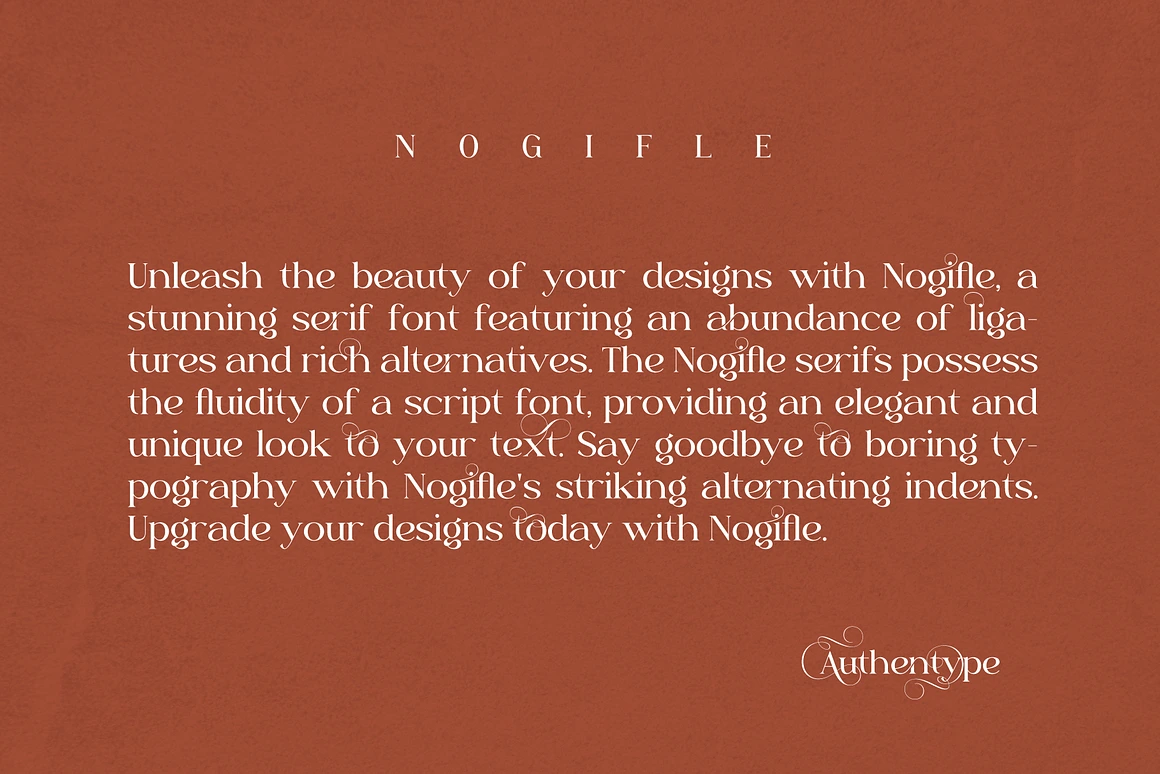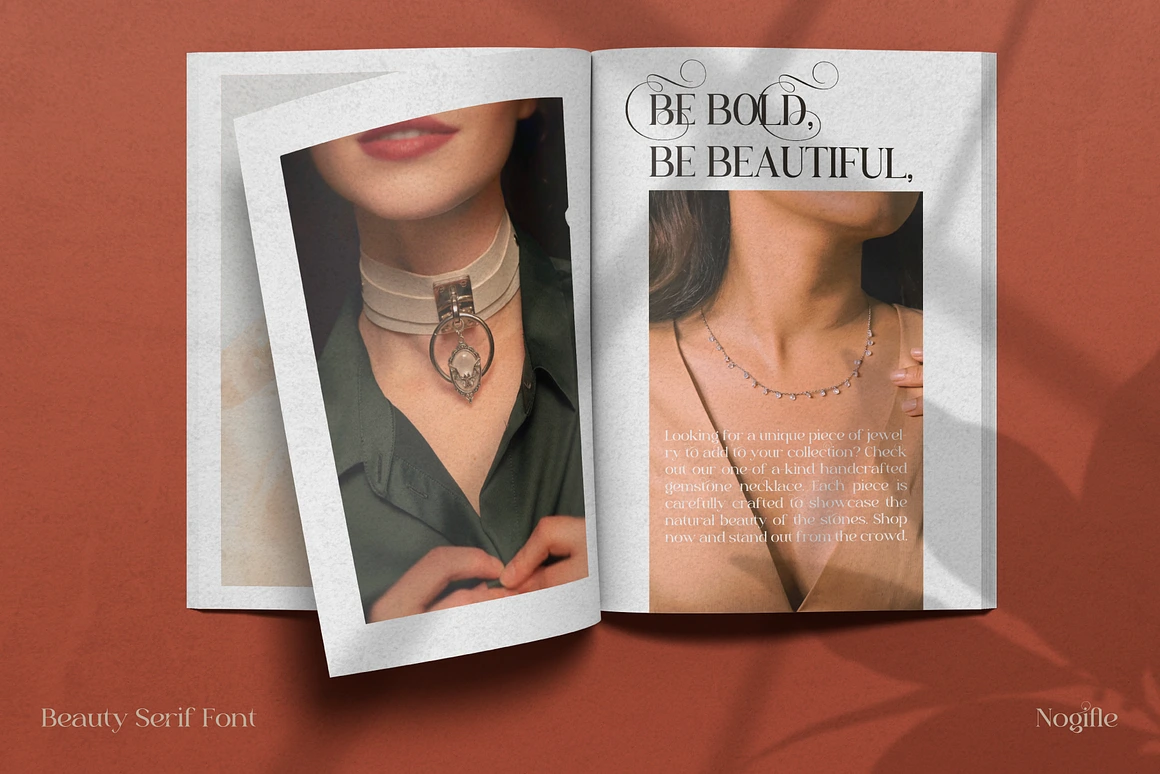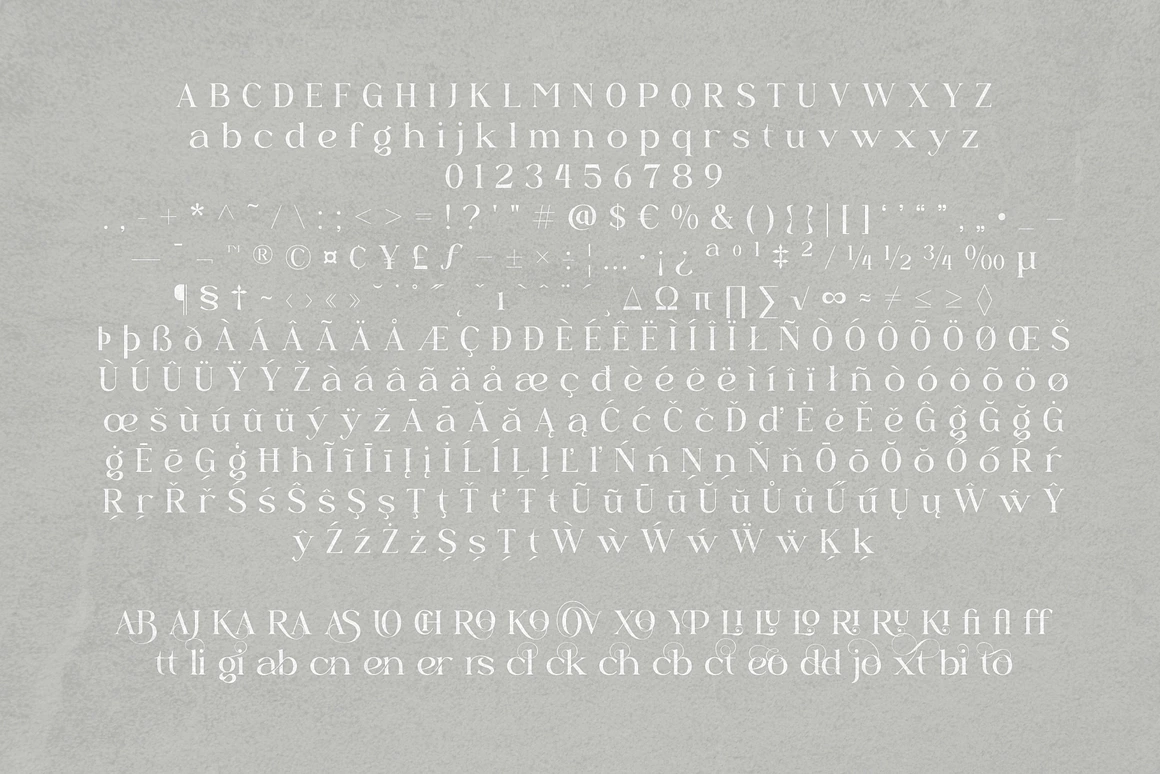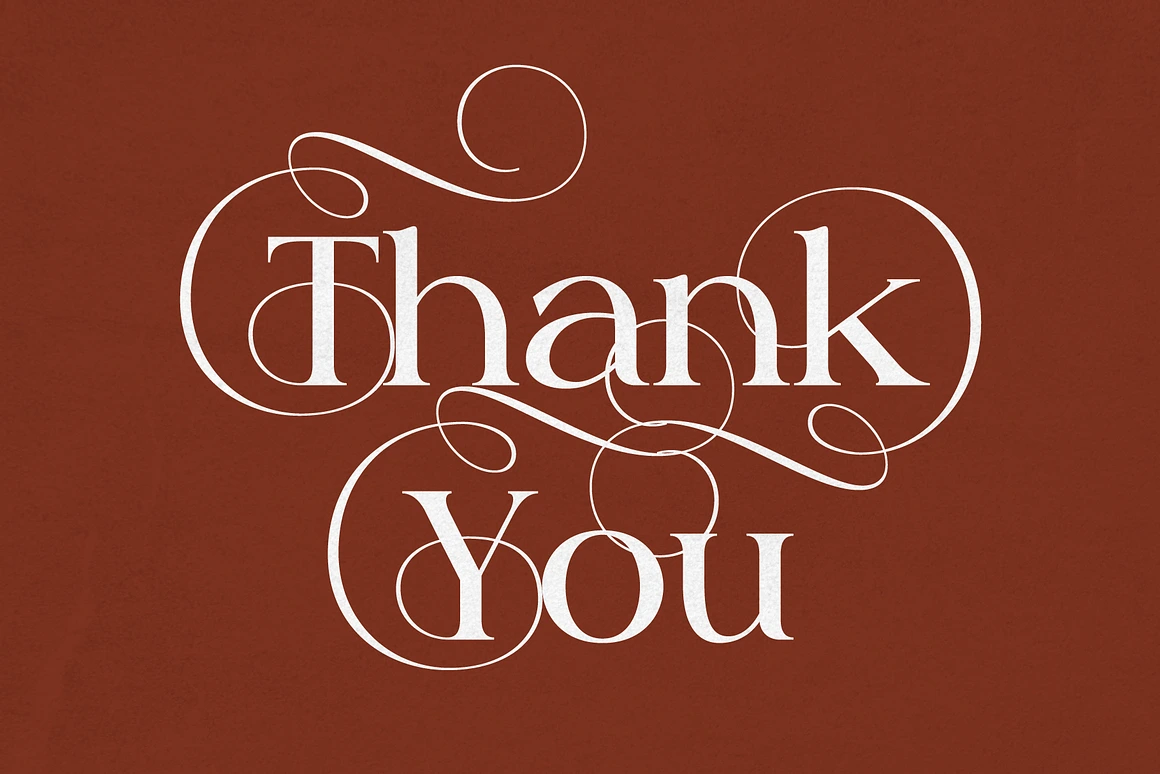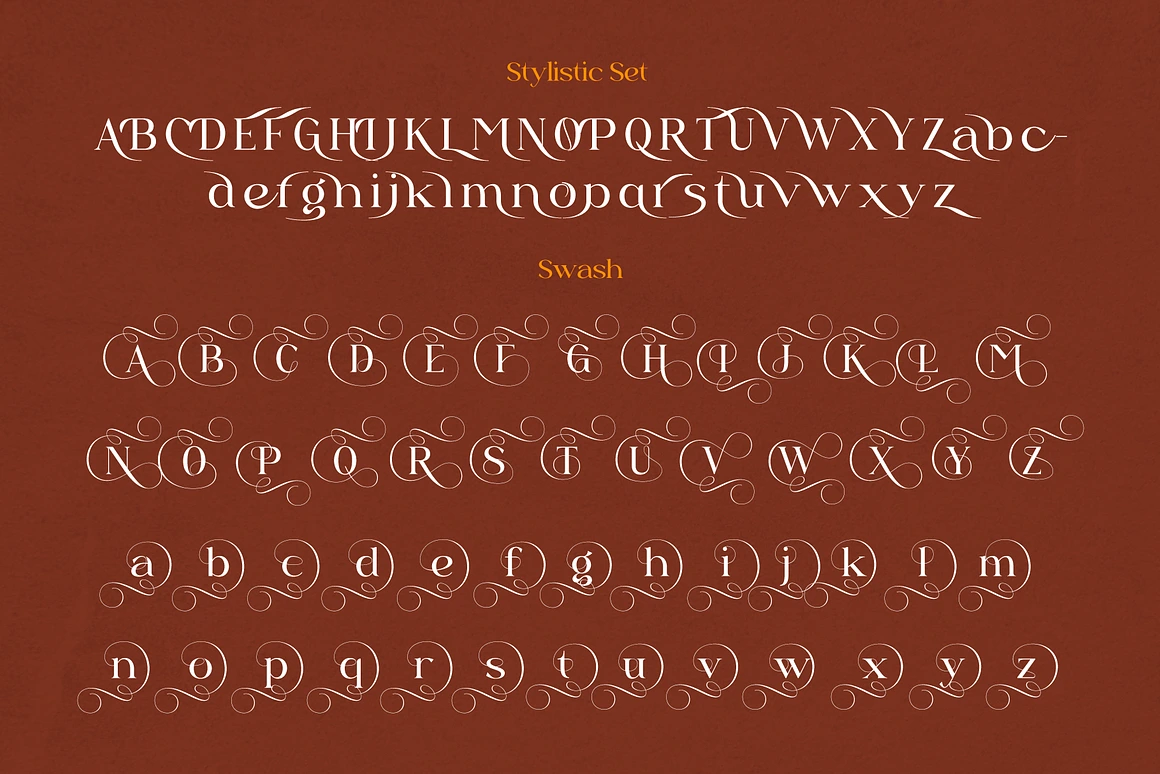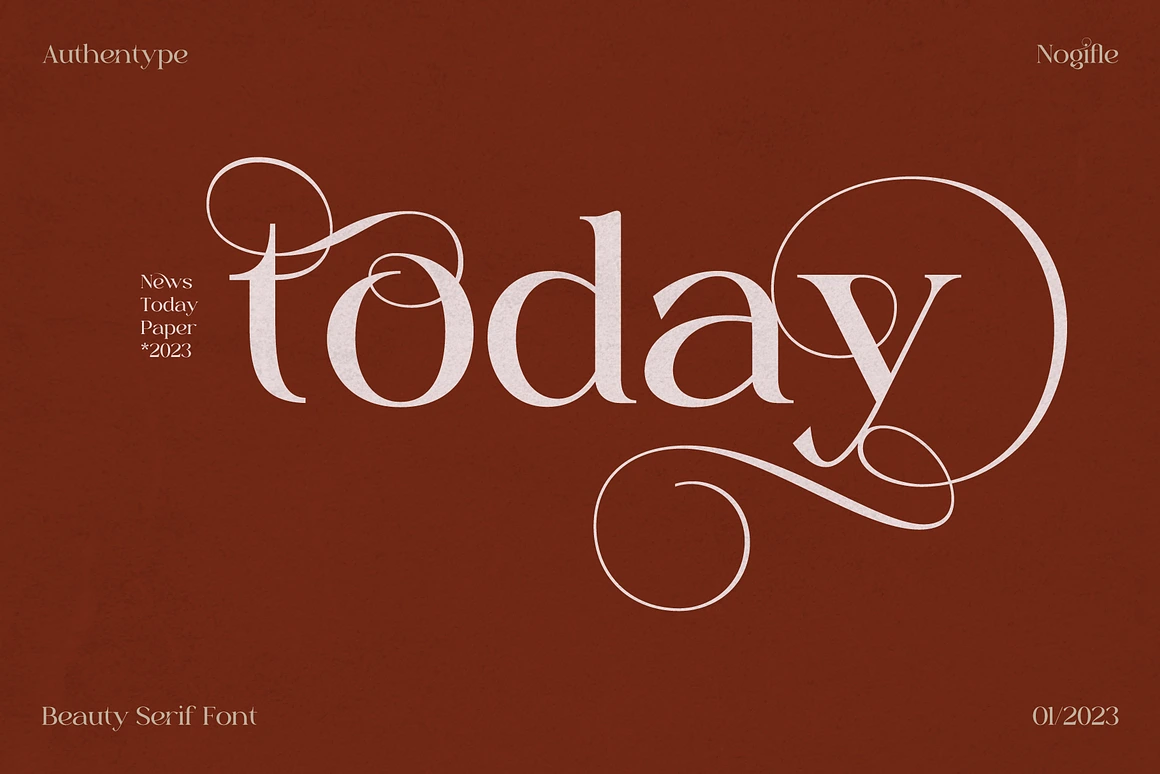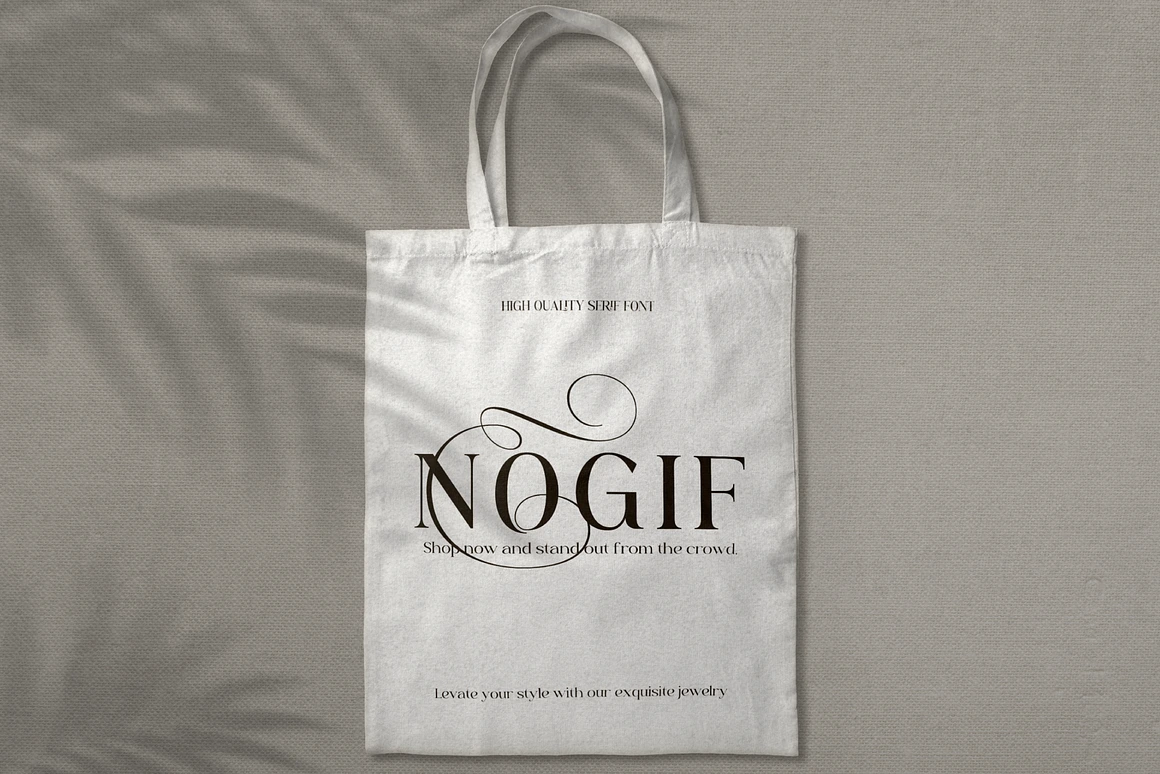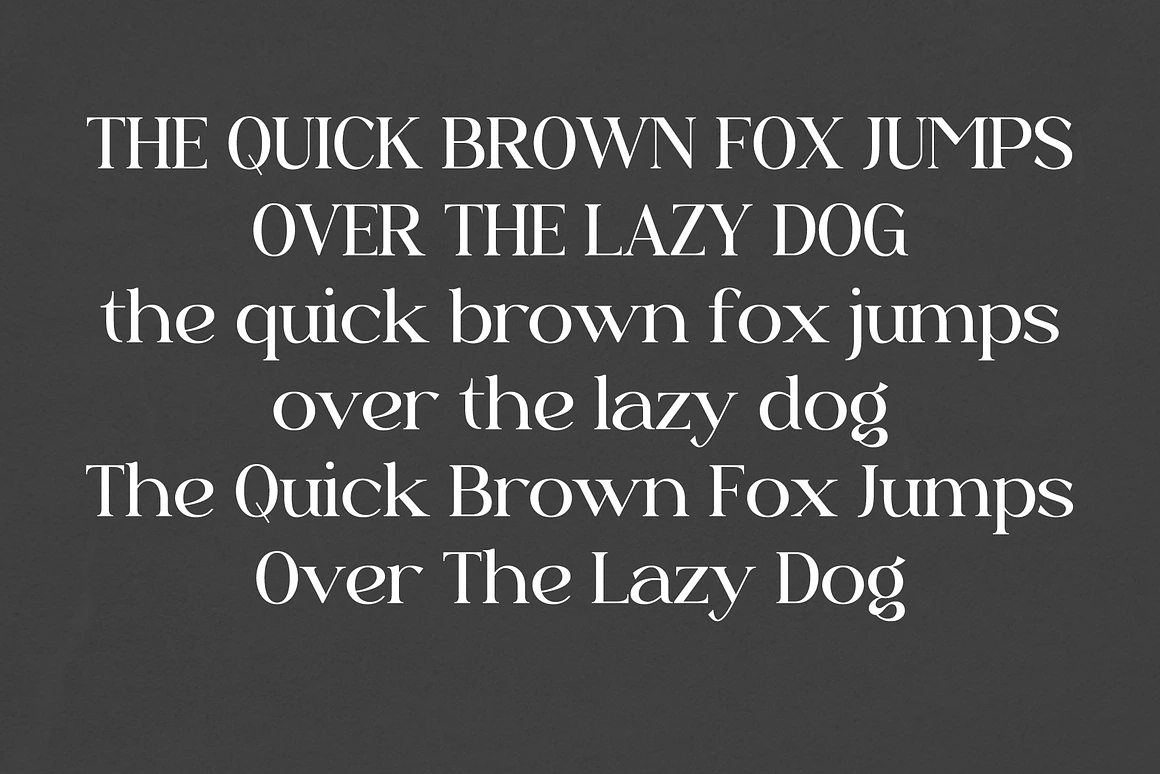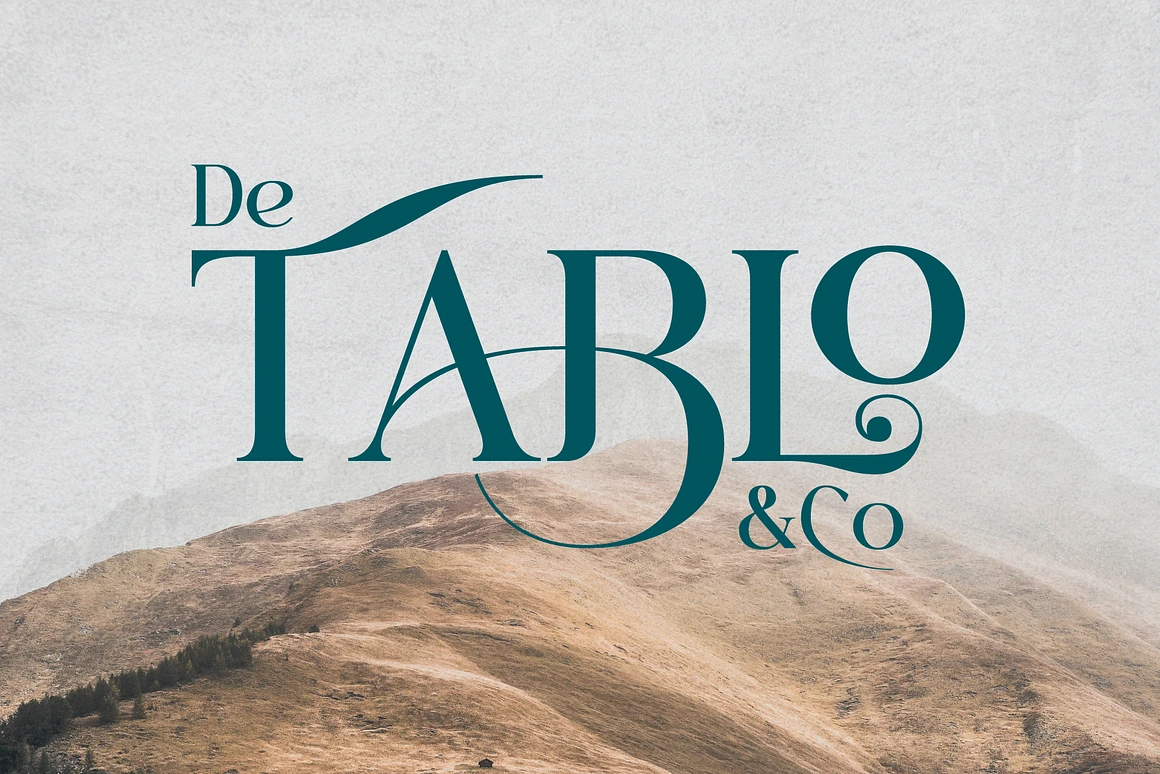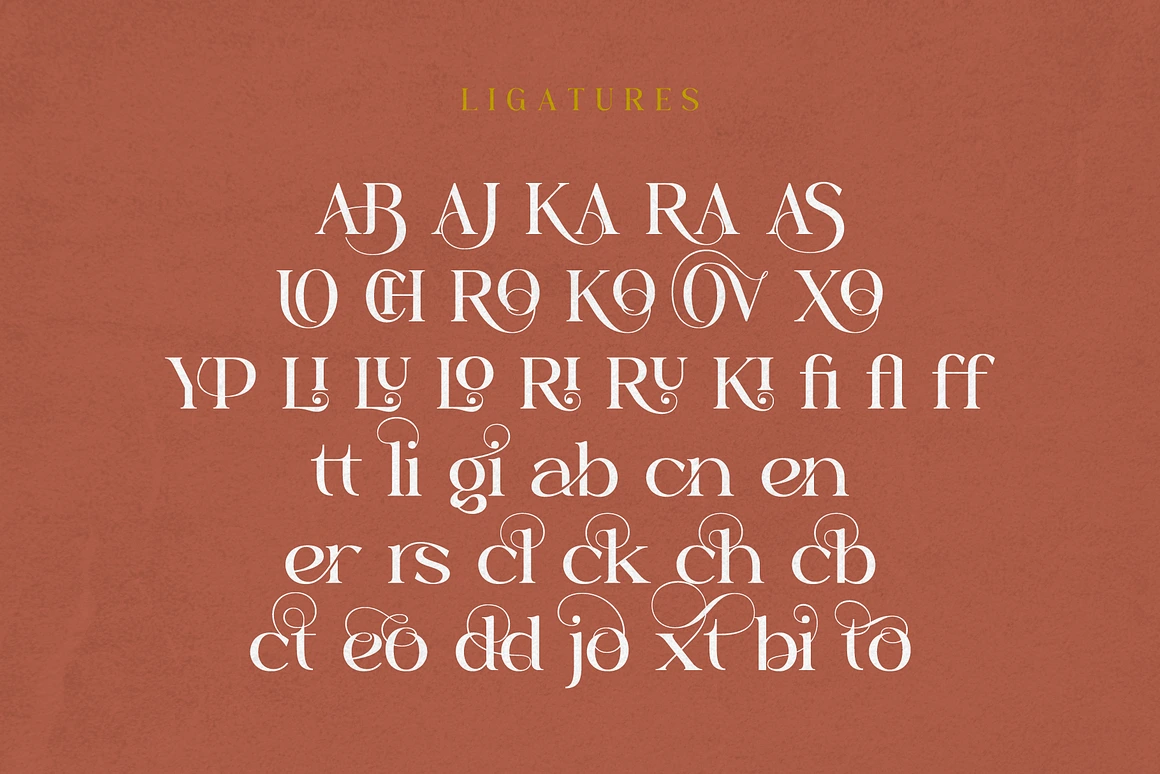
Nogifle Beauty Serif Font
Nogifle
Unleash the beauty of your designs with Nogifle – a Beauty Serif Font designed to elevate your creative projects. Nogifle is a stunning serif font featuring an abundance of ligatures and rich alternatives. This Beauty Serif Font blends the elegance of script-like curves with the timeless charm of serifs, creating a truly unique and sophisticated look for your text.
Say goodbye to boring typography with Nogifle’s striking alternating indents. Upgrade your designs today with Nogifle – the ultimate Beauty Serif Font for modern and classic aesthetics alike.